Great graphic design is powered by great font selection. But picking great fonts is a challenge most people. Luckily, Canva has made adding great fonts to your designs much easier. In this tutorial, our team of design experts will cover the best glyph fonts in Canva.
What Are Glyph Fonts?
Glyph fonts are a type of font that includes a wide range of special characters, symbols, and shapes beyond the standard set of alphanumeric characters. Some characteristics of glyph fonts include:
- Large Character Set: Glyph fonts have a large character set that includes a variety of special characters, symbols, and shapes.
- Wide Range of Uses: Glyph fonts are used for a wide range of applications, including graphic design, branding, and user interfaces.
- Scalability: Glyph fonts are scalable, which means they can be resized without losing quality or becoming pixelated.
- Customizability: Glyph fonts can be customized by changing the color, size, and weight of the characters.
- Accessibility: Glyph fonts can enhance accessibility for people with visual impairments by providing alternative symbols and characters.
- Unicode Compatible: Glyph fonts are Unicode compatible, which means they can be used across multiple platforms and devices.
- Versatility: Glyph fonts can be used in a variety of styles, from modern to classic, making them versatile and adaptable to different design needs.
Best Canva Glyph Fonts
1. Zag Thin Drops
Zag Thin Drops is a modern and elegant sans-serif font with a thin and delicate design. Its geometric shapes give it a contemporary feel, while its thin strokes make it highly legible and easy to read. It’s a great choice for creating clean and sophisticated designs, especially in fashion or editorial projects.
2. Blink Twice
Blink Twice is a bold, sans-serif font with wavy, irregular lines giving it a hand-drawn or decorative appearance.
3. Bird House
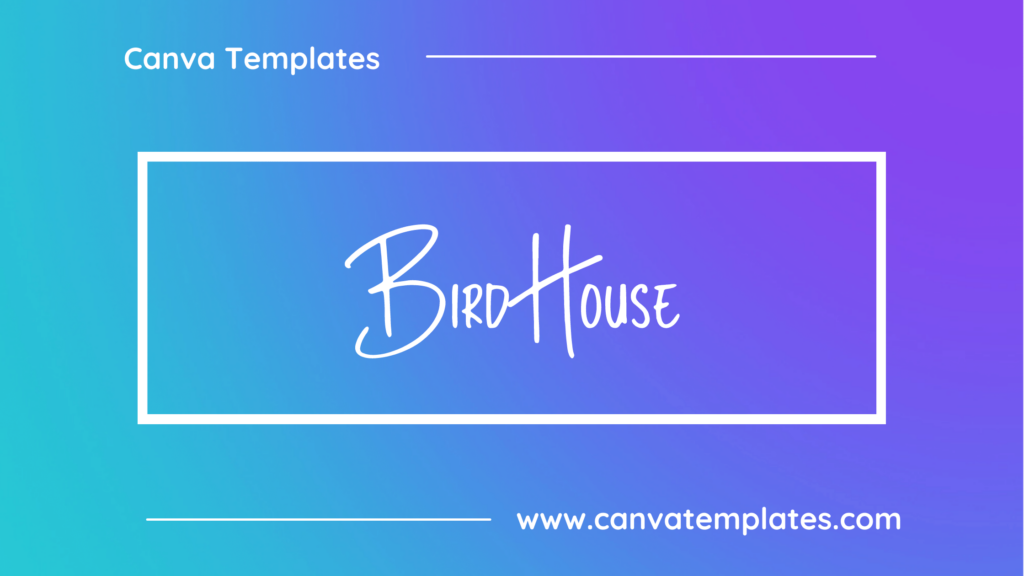
Bird House is a whimsical, hand-drawn font that emulates the look of handwritten lettering found on rustic signs or in children’s books. It features irregular strokes and charming quirks, making it a great choice for projects that need a playful touch.
4. ST Tokyo Hieroglyphic
ST Tokyo Hieroglyphic is a decorative font with a hieroglyphic-inspired design. It features unique characters and symbols that resemble ancient writing systems, as well as modern elements such as bold lines and geometric shapes. The font is designed to be used for headlines, titles, and other display purposes where a distinctive and eye-catching look is desired.
5. Liana
Liana is a cursive font with a romantic and feminine feel, featuring delicate lines and elegant loops. It’s a great choice for projects that want to convey a sense of beauty and sophistication, such as wedding invitations or luxury branding.
6. Forma
Forma is a geometric sans-serif font designed by David Jonathan Ross. It features a minimalistic, modern look with circular strokes and a large x-height for improved legibility. Forma comes in various weights and styles, making it versatile for use in different contexts, including body text and headlines.
7. Mokoto Glitch 2
Mokoto Glitch 2 is a distorted and fragmented font with a glitch-style design. It’s perfect for creating experimental and futuristic designs, or for adding a creative and unconventional touch to any project. Its distorted shapes and fractured letterforms make it highly customizable, giving it a unique and personalized feel.
8. Pinyon Script
Pinyon Script is a cursive font with a romantic and elegant feel, featuring delicate loops and flourishes. It’s a great choice for projects that want to convey a sense of sophistication and beauty, such as wedding invitations or high-end branding.
9. White Star
White Star is a vintage-inspired font with a classic and timeless feel, featuring bold and ornate lettering. It’s a great choice for projects that want to convey a sense of history or nostalgia, such as antique shop logos or retro-themed branding.
10. Vintage Moon
Vintage Moon is a decorative serif font that features a classic and elegant design with a touch of nostalgia. It has a vintage and retro look, with unique and decorative elements that give it a charming and whimsical feel. The letters are slightly condensed and have a serif design, making it a great choice for designs that need a traditional or vintage aesthetic.
Conclusion